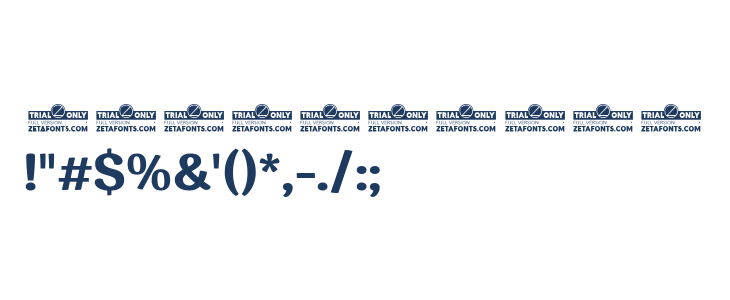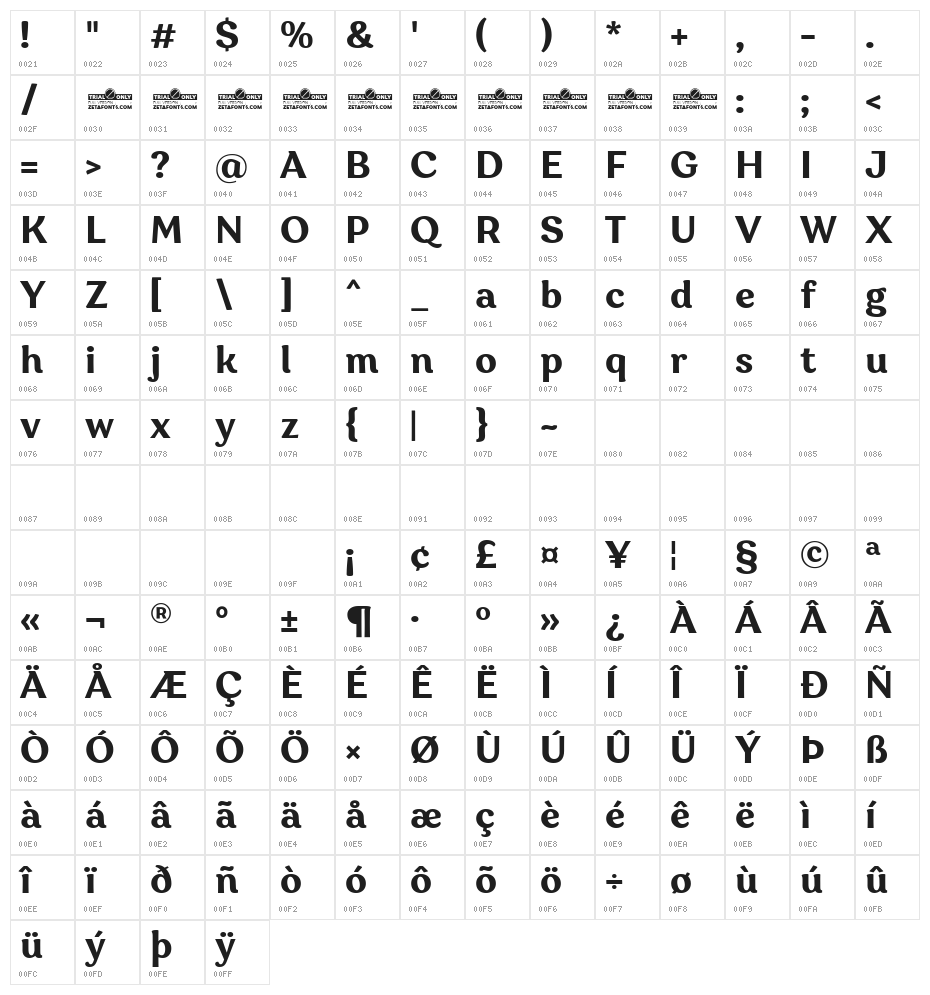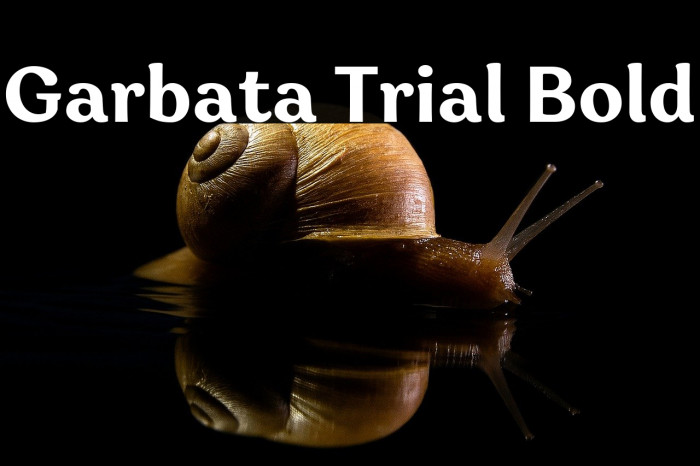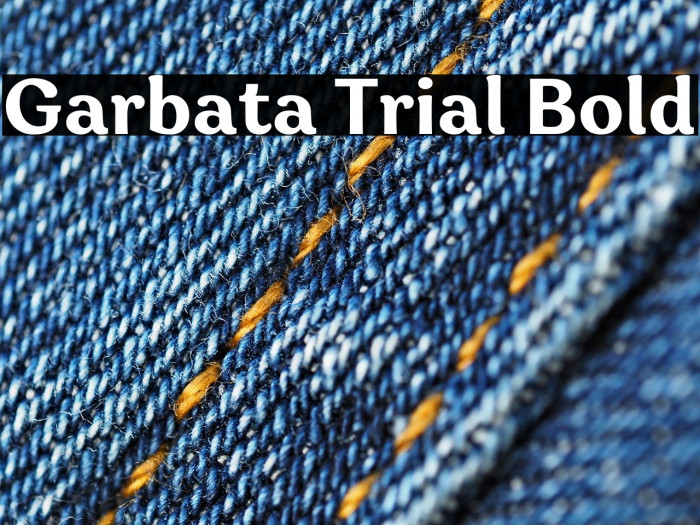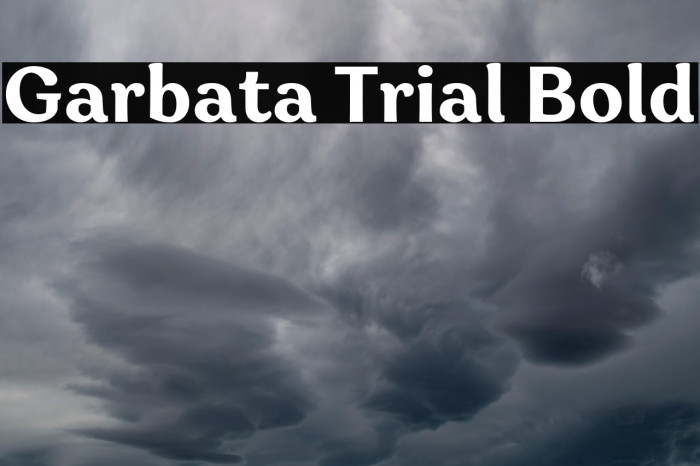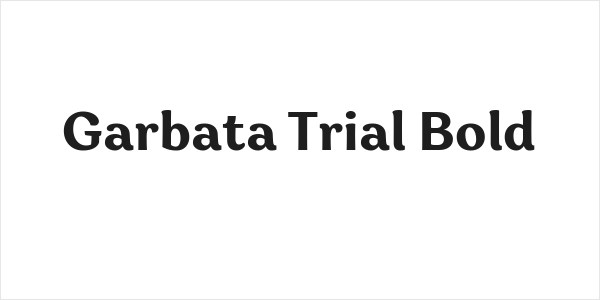
Garbata Trial Bold Font
Garbata Trial Bold Description
This font exhibits a bold and robust character with a strong presence. The uppercase letters are well-defined with a slight curvature that adds a touch of elegance to the overall appearance. The lowercase letters maintain a consistent weight, providing a harmonious balance between the characters. The numerals are clear and legible, making them suitable for various applications. The special characters are distinct and complement the overall style of the font. This typeface is versatile, offering a modern yet classic feel that can enhance both digital and print media.